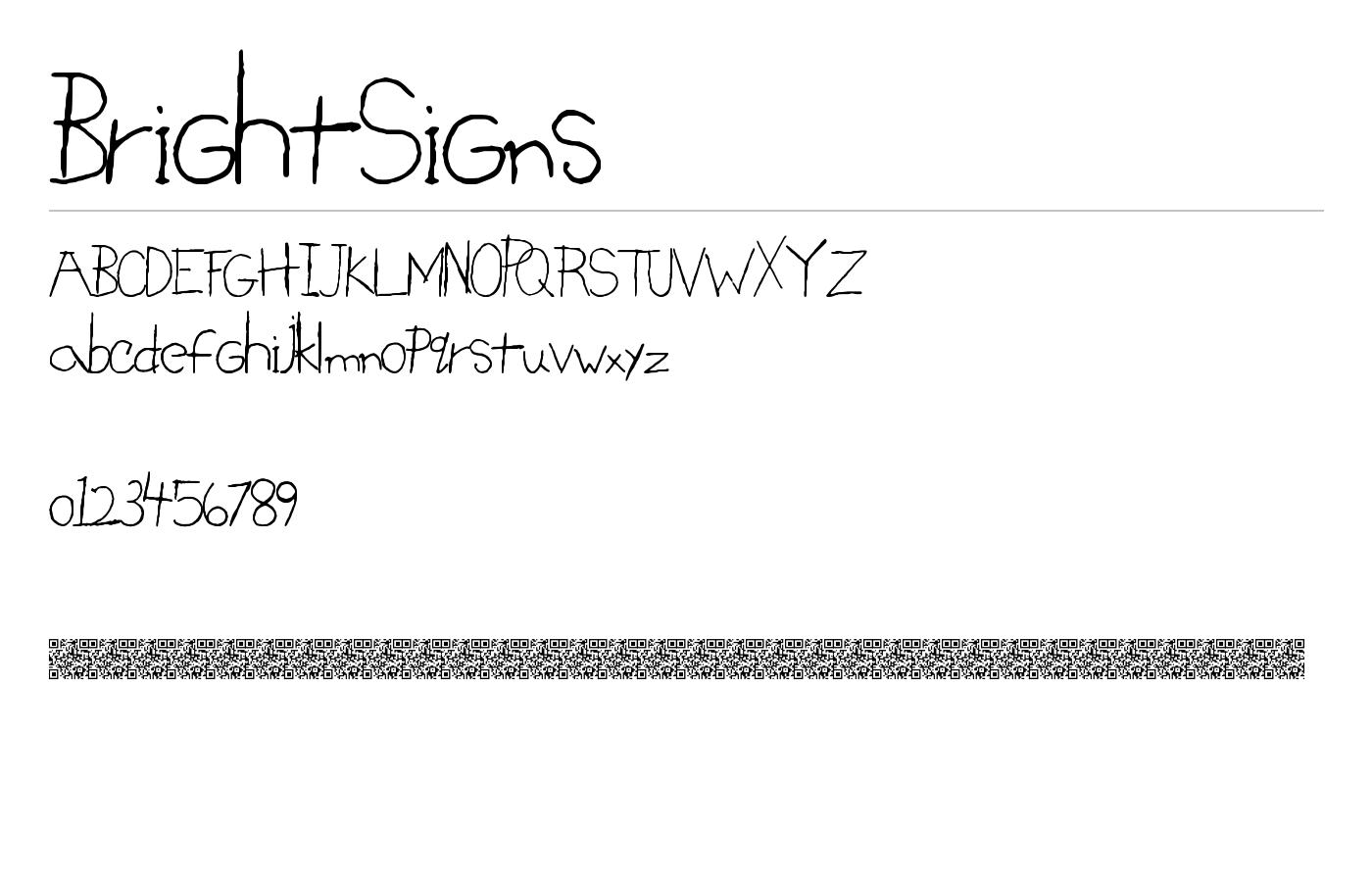
BrightSigns is a quirky, hand-drawn sans serif font with a delicate, irregular stroke that gives it a playful and whimsical character. Its narrow and tall letterforms with uneven lines evoke a casual, approachable feel, making it ideal for creative projects, informal branding, or designs that want to convey friendliness and uniqueness. This font shines in headlines, posters, or artistic packaging where an organic, human touch is desired.